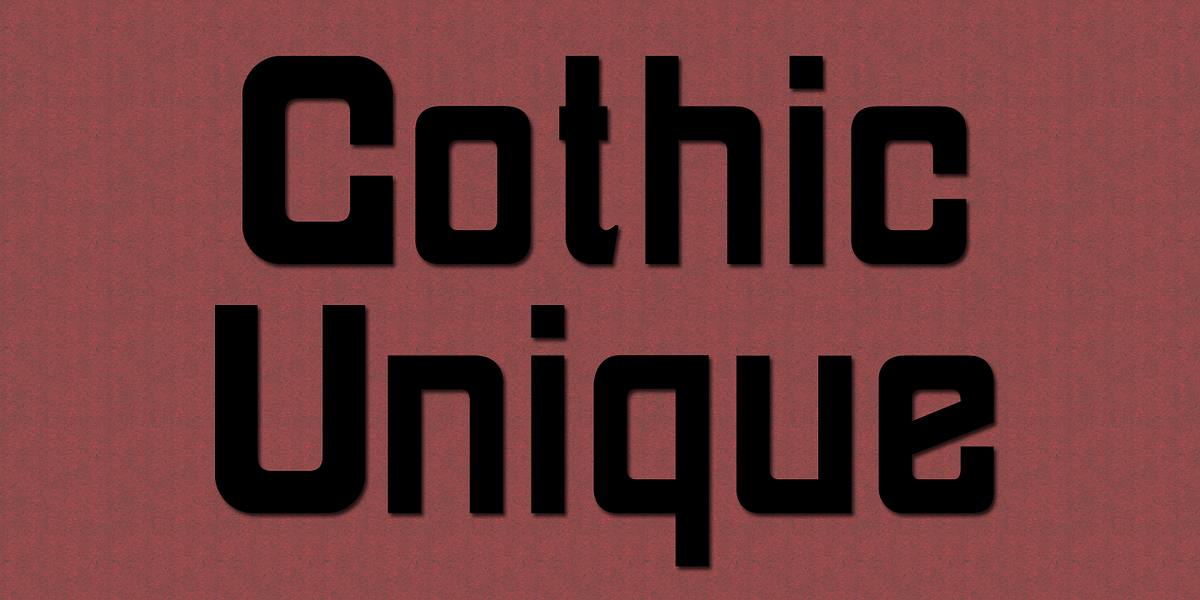
Gothic Unique
Gothic Unique is a revival of a unique 19th-century wooden type font. It's a bold sans serif font characterized by its geometric shapes and lack of spurs (the small projections at the ends of strokes). Its vintage inspiration makes it suitable for headlines and display purposes where a strong, eye-catching presence is desired.